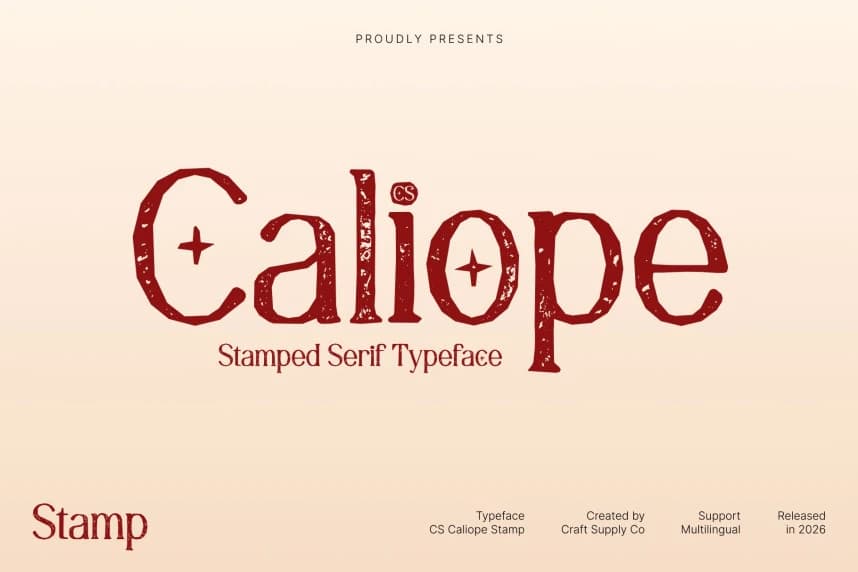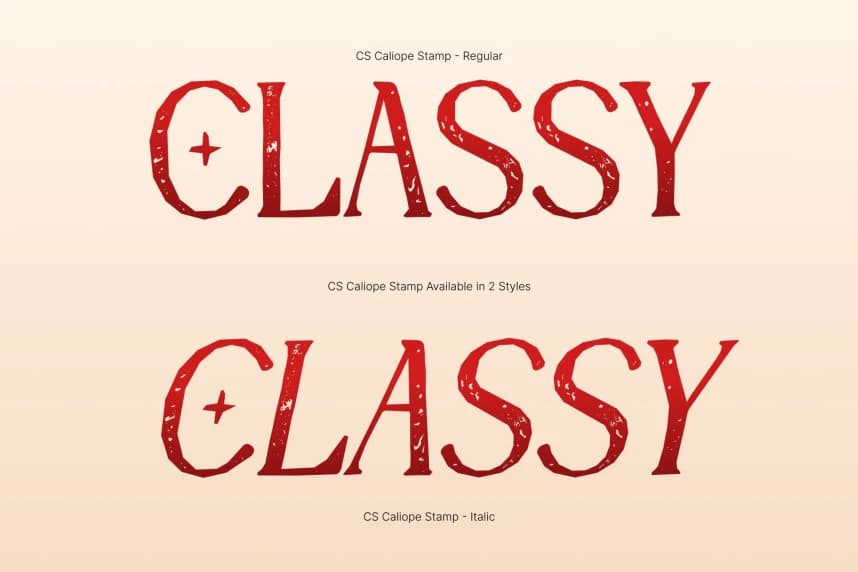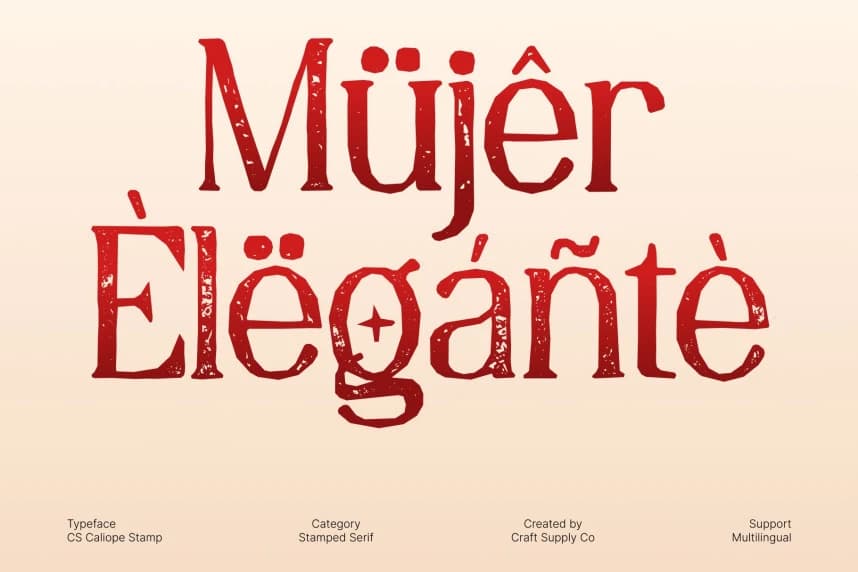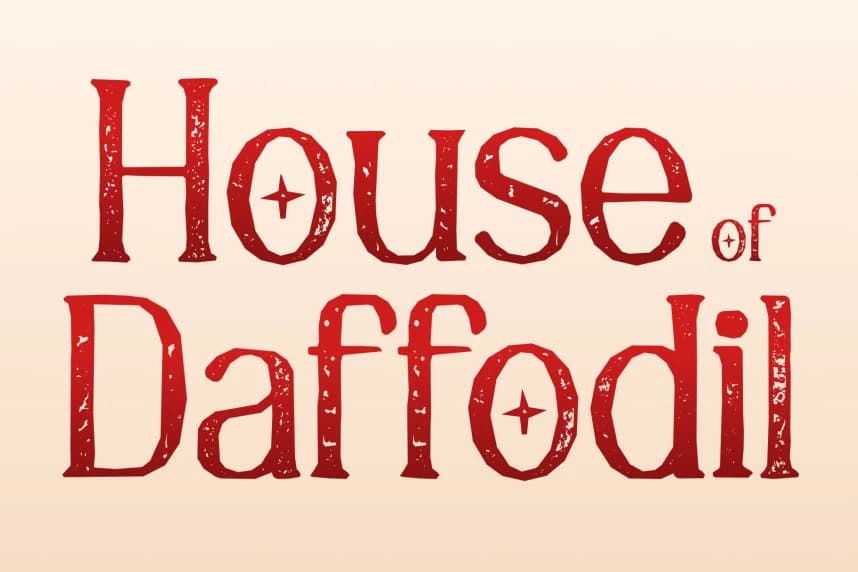
CS Caliope Stamp Font
CS Caliope Stamp Font – Elongated Elegance with Vintage Texture Modern Serif with Artistic Stamp Character. This transforms a sleek modern serif into a tactile, expressive display font. Its elongated letterforms retain refined vertical rhythm